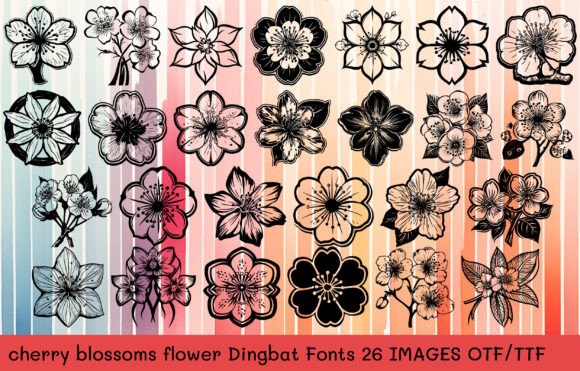
Cherry Blossoms Flower Font: A Beautiful Addition to Your Designs
Are you looking for a unique and elegant font to add a touch of sophistication to your designs? Look no further than the Cherry Blossoms Flower Font. This beautiful font features 26 floral images, one for each letter of the alphabet, making it perfect for a variety of creative projects.
What is Cherry Blossoms Flower Font?
Cherry Blossoms Flower Font is a dingbat font that features stunning illustrations of cherry blossoms, one for each letter of the alphabet. The font is available in OTF and TTF formats, making it compatible with a wide range of design software. The font is perfect for adding a touch of elegance and sophistication to your designs, whether you’re working on a craft project, creating a logo, or designing a website.
Features of Cherry Blossoms Flower Font
- 26 floral images: Each letter of the alphabet has its own unique floral image, making it perfect for creating beautiful and intricate designs.
- Elegant and sophisticated: The cherry blossom illustrations are delicate and beautiful, adding a touch of elegance and sophistication to your designs.
- Perfect for crafts and creative projects: The font is perfect for crafters, scrapbookers, and anyone working on creative projects.
Uses for Cherry Blossoms Flower Font
Cherry Blossoms Flower Font is a versatile font that can be used for a wide range of design projects. Here are some ideas to get you started:
- Crafting: Use the font to add a touch of elegance to your craft projects, such as scrapbooking, card making, and paper crafting.
- Logo design: Use the font to create a beautiful and unique logo for your business or brand.
- Web design: Add a touch of sophistication to your website with the Cherry Blossoms Flower Font.
- Stationery: Use the font to create beautiful stationery, such as invitations, greeting cards, and letterhead.
Benefits of Using Cherry Blossoms Flower Font
There are many benefits to using Cherry Blossoms Flower Font in your designs. Here are a few:
- Unique and eye-catching: The font features beautiful and unique illustrations of cherry blossoms, making it perfect for adding a touch of elegance to your designs.
- Versatile: The font can be used for a wide range of design projects, from crafting to web design.
- High-quality: The font is high-quality and scalable, making it perfect for use in a variety of designs.
Tips for Using Cherry Blossoms Flower Font
Here are a few tips for using Cherry Blossoms Flower Font in your designs:
- Use it sparingly: Because the font features illustrations of cherry blossoms, it’s best to use it sparingly to avoid overwhelming your design.
- Pair it with a simple font: Pair the Cherry Blossoms Flower Font with a simple font to create a beautiful contrast.
- Experiment with colors: Experiment with different colors to find the perfect combination for your design.
Cherry Blossoms Flower Font is a beautiful and elegant font that is perfect for adding a touch of sophistication to your designs. With its 26 floral images, OTF and TTF formats, and versatility, it’s perfect for a wide range of creative projects. Whether you’re a crafter, scrapbooker, or designer, this font is sure to become a favorite.